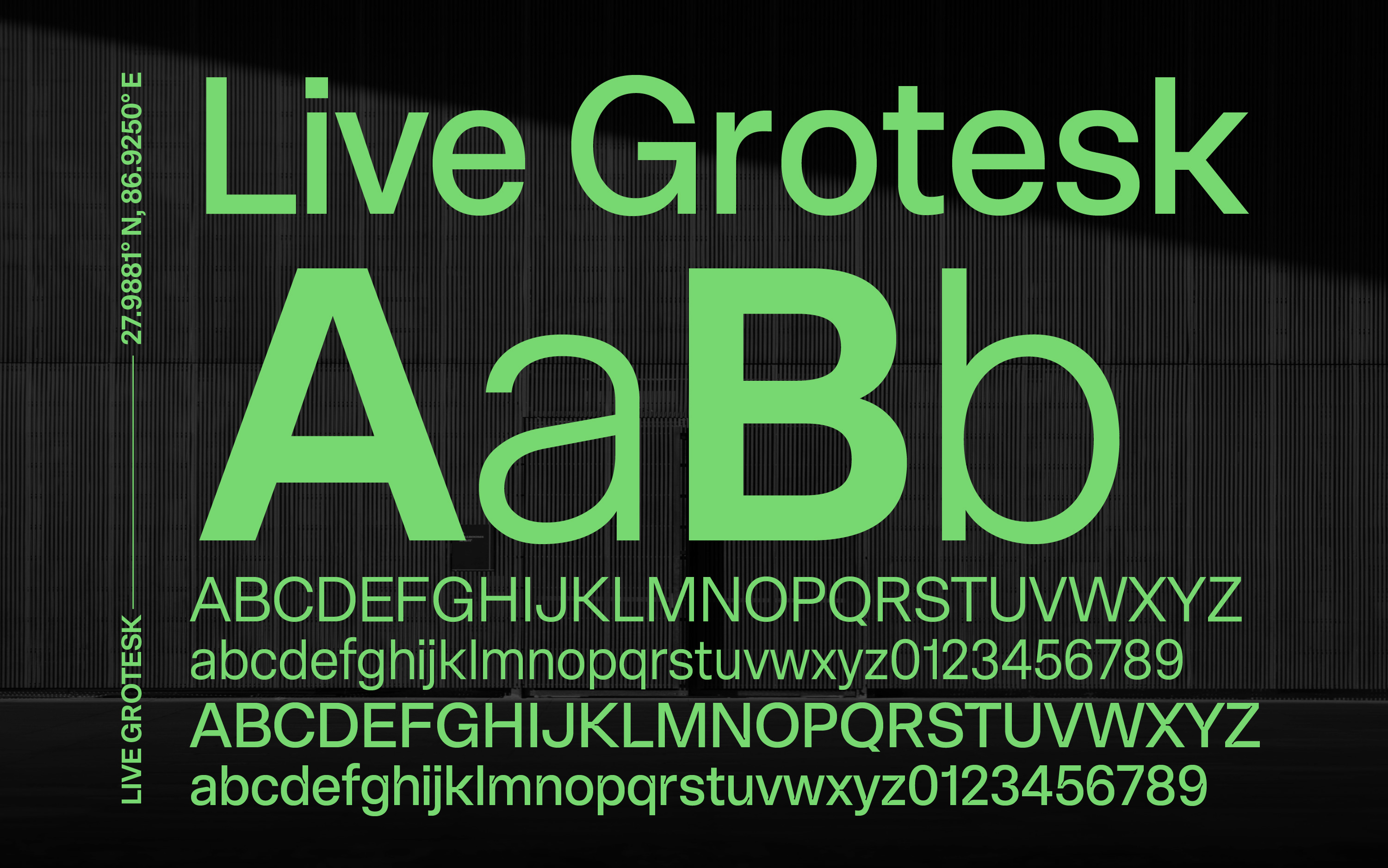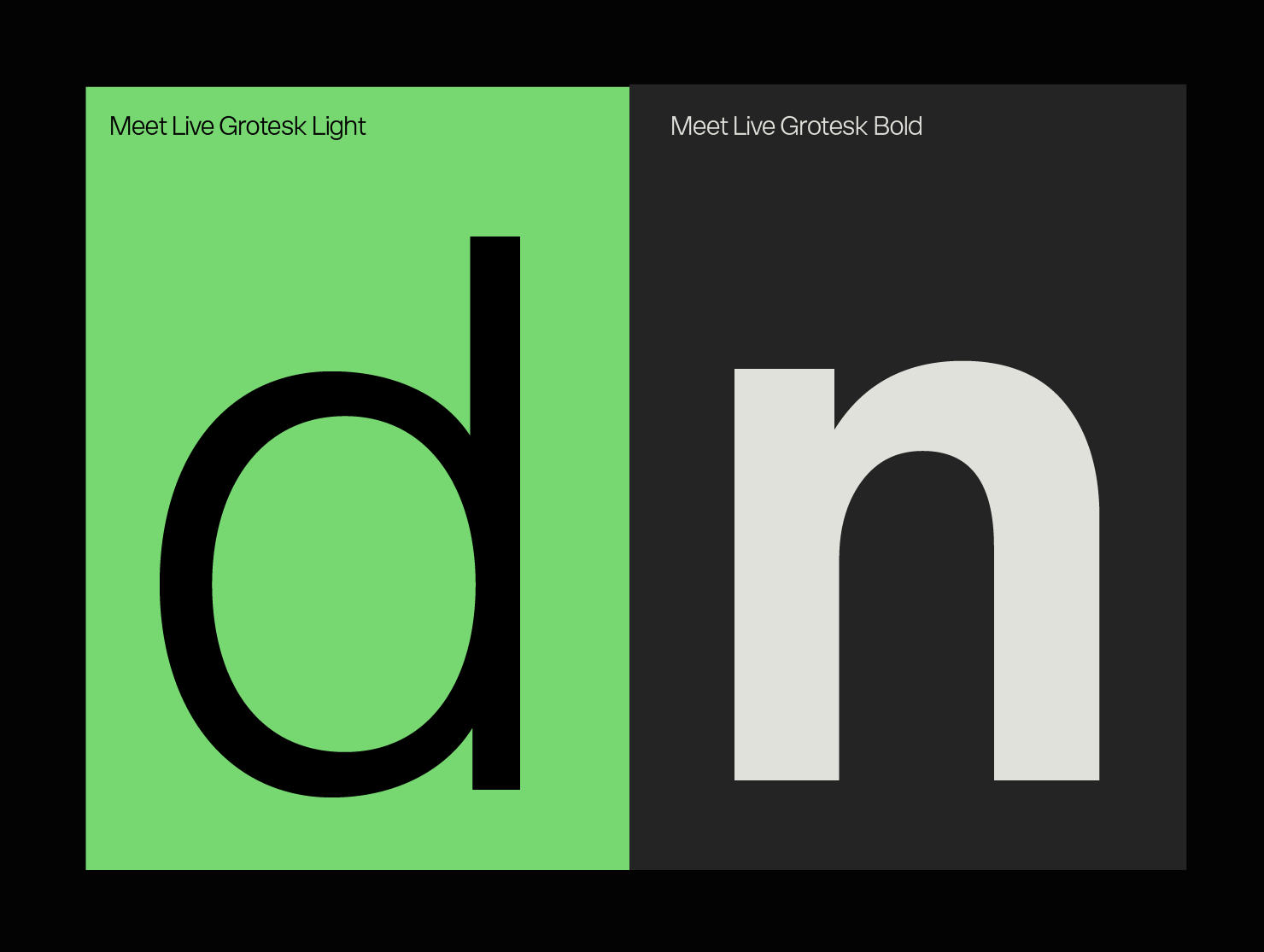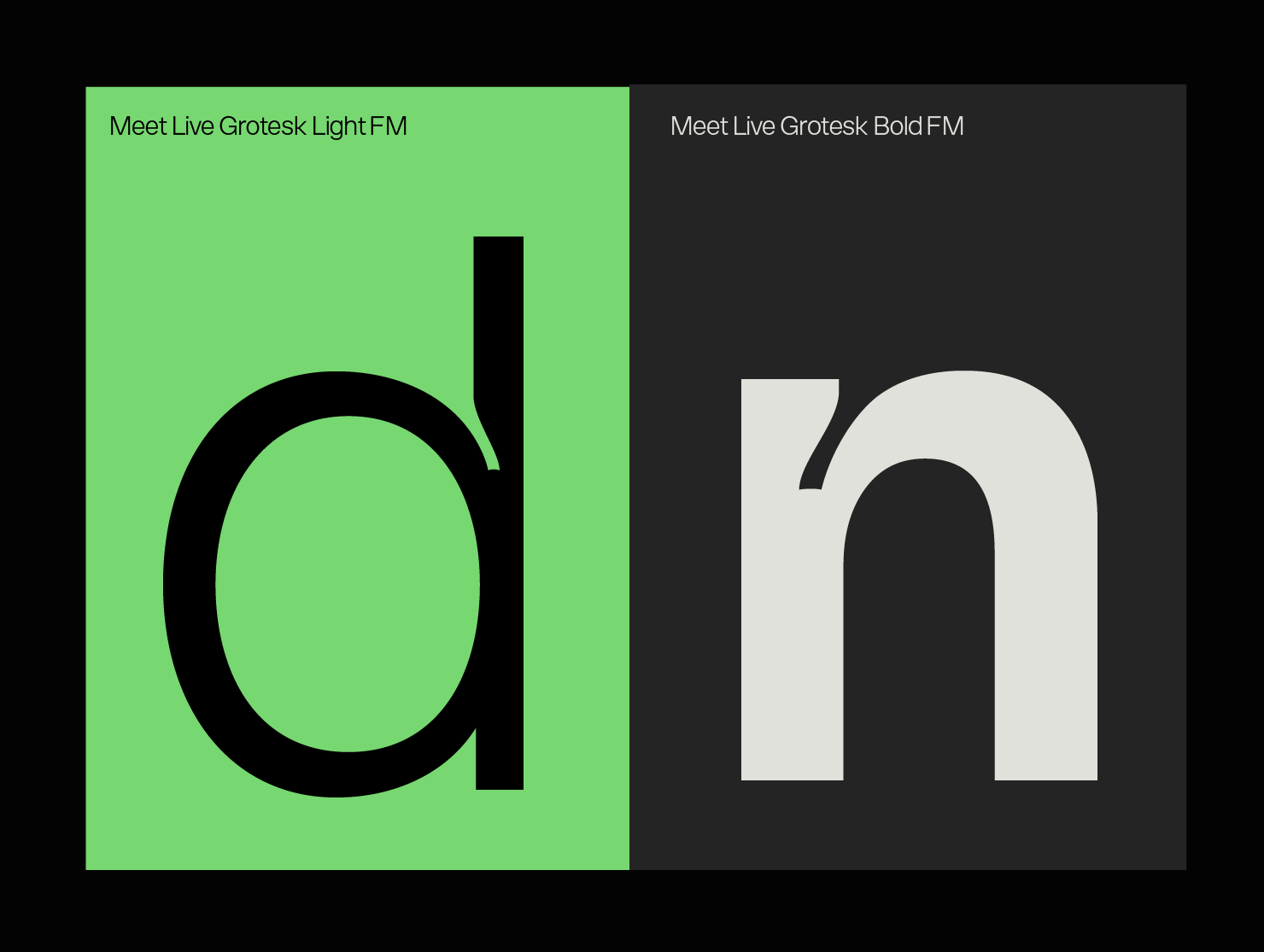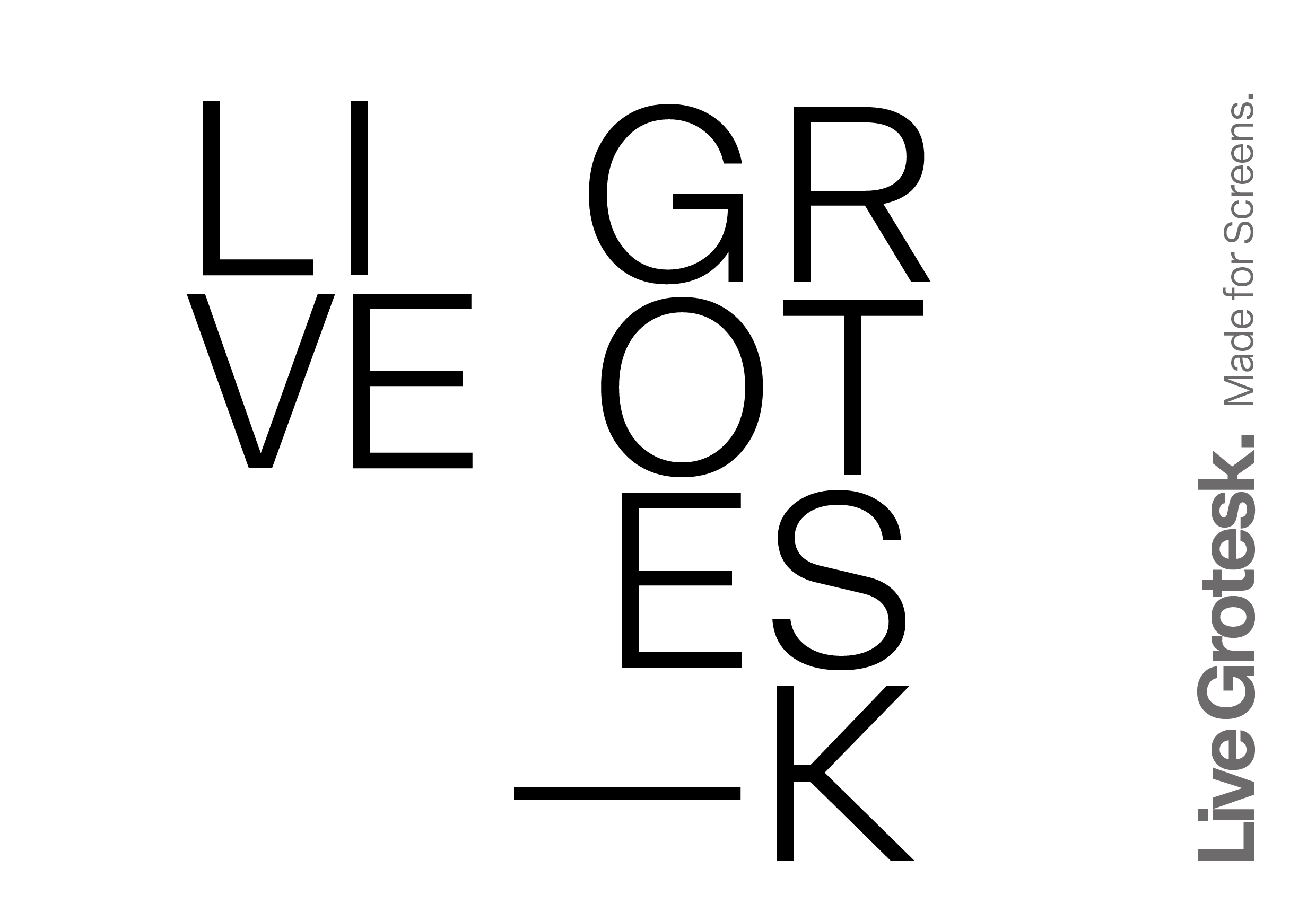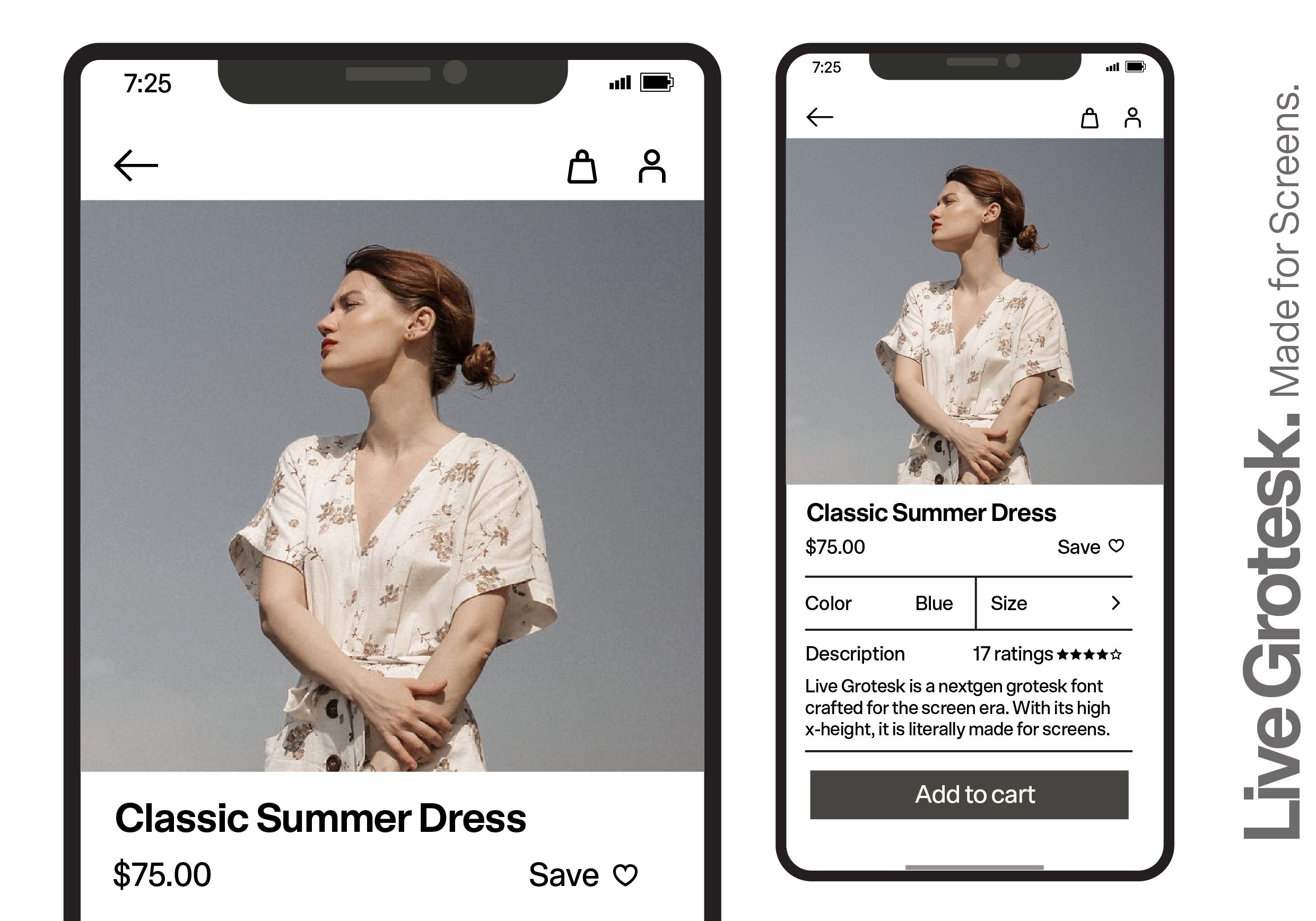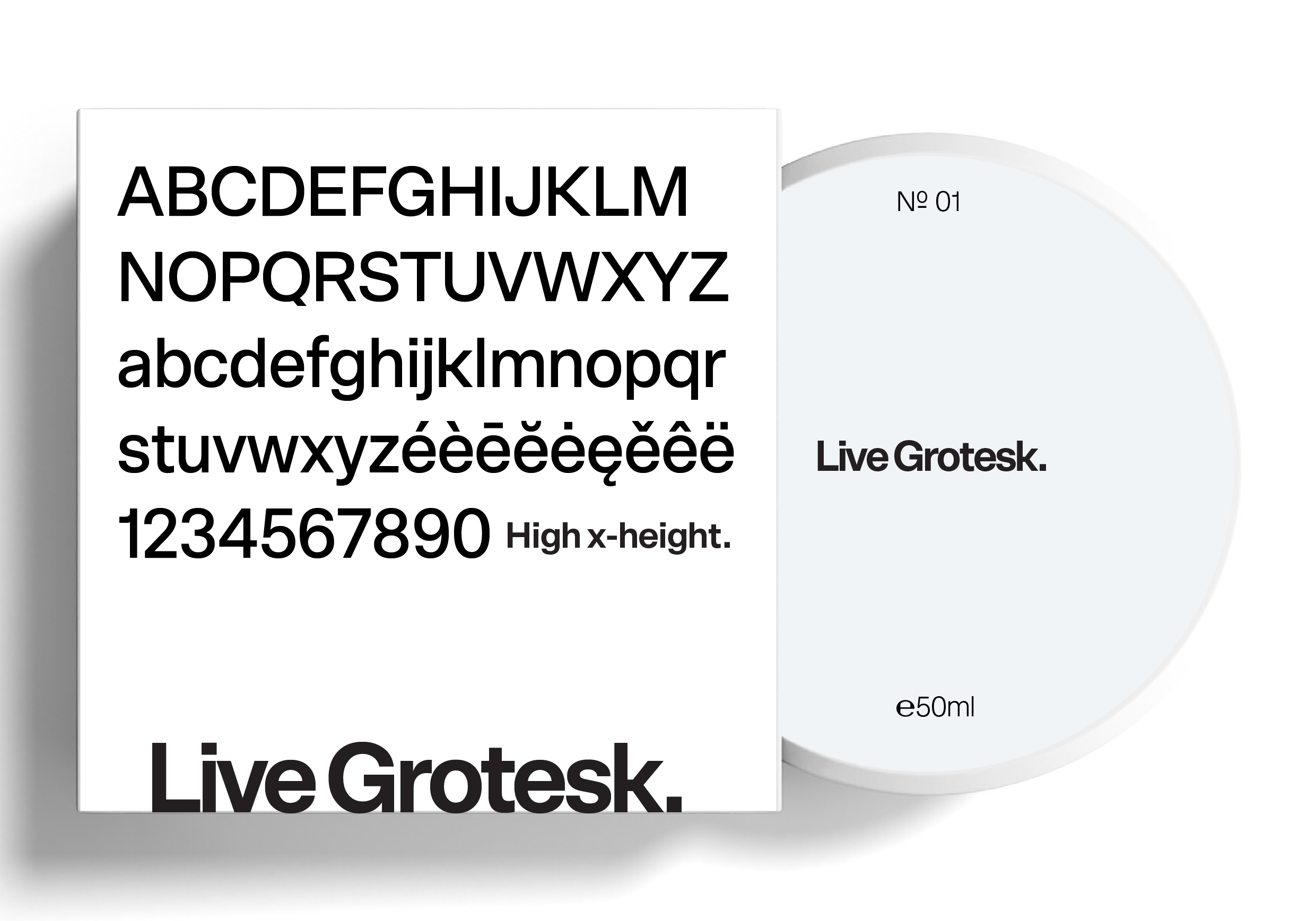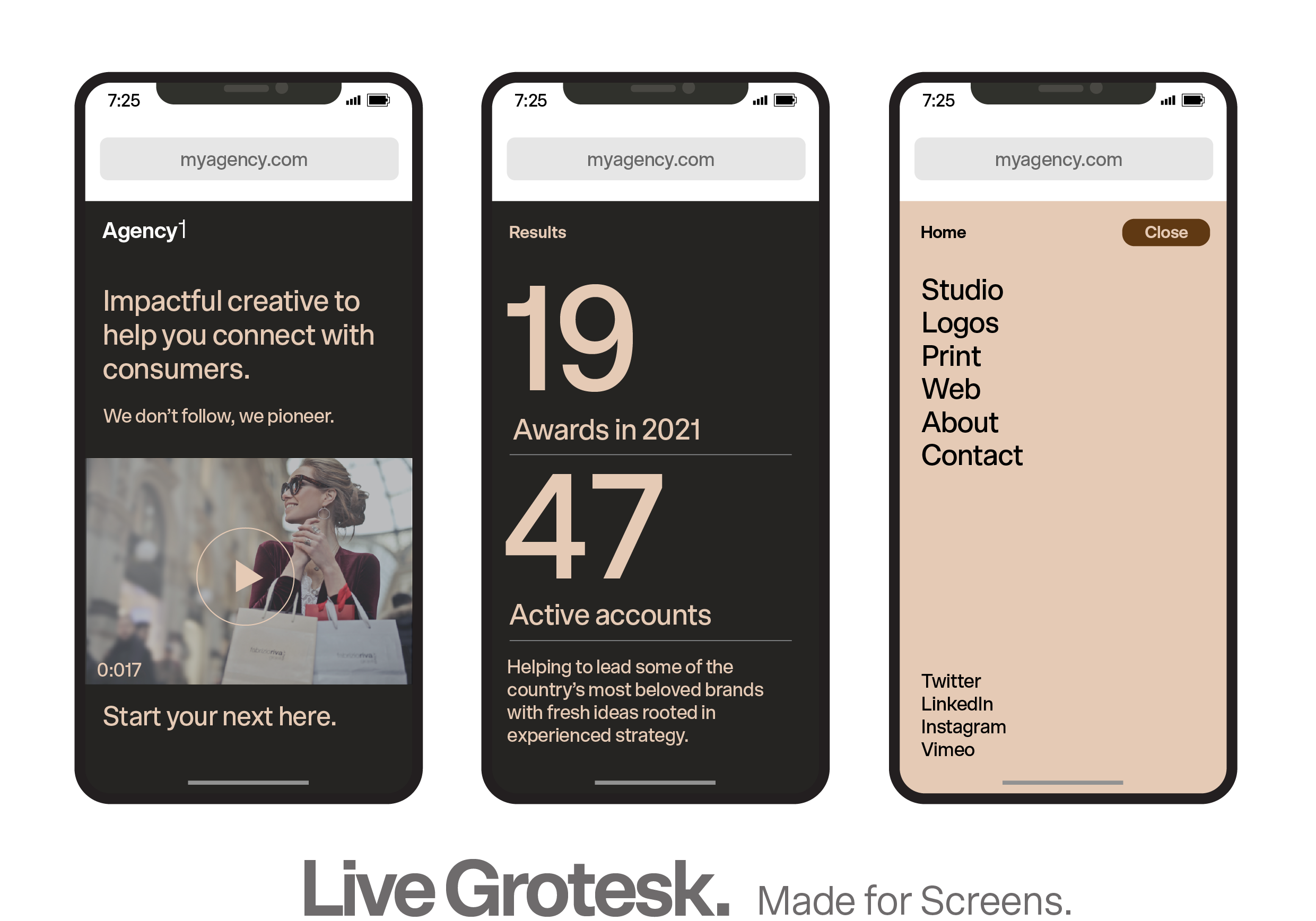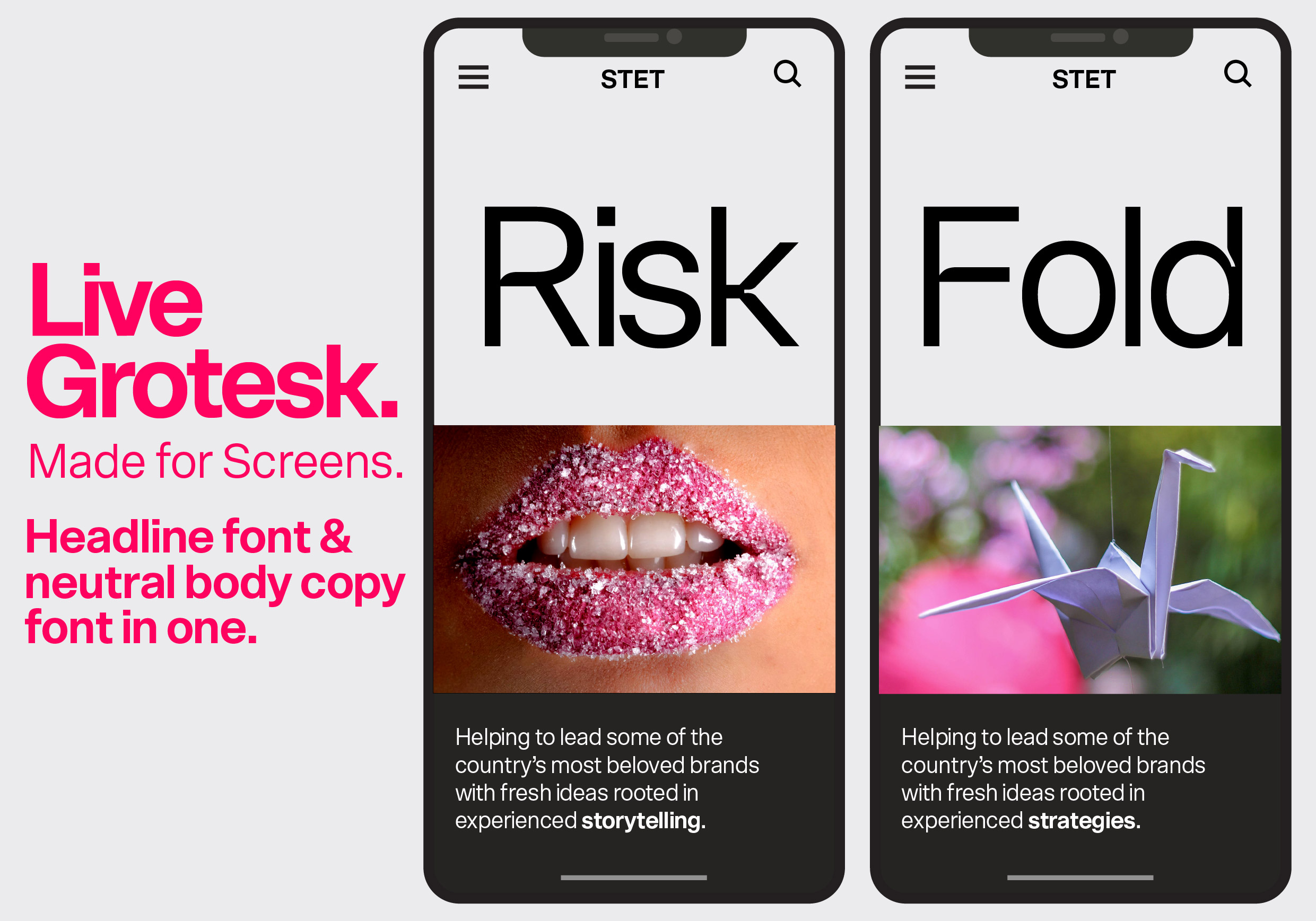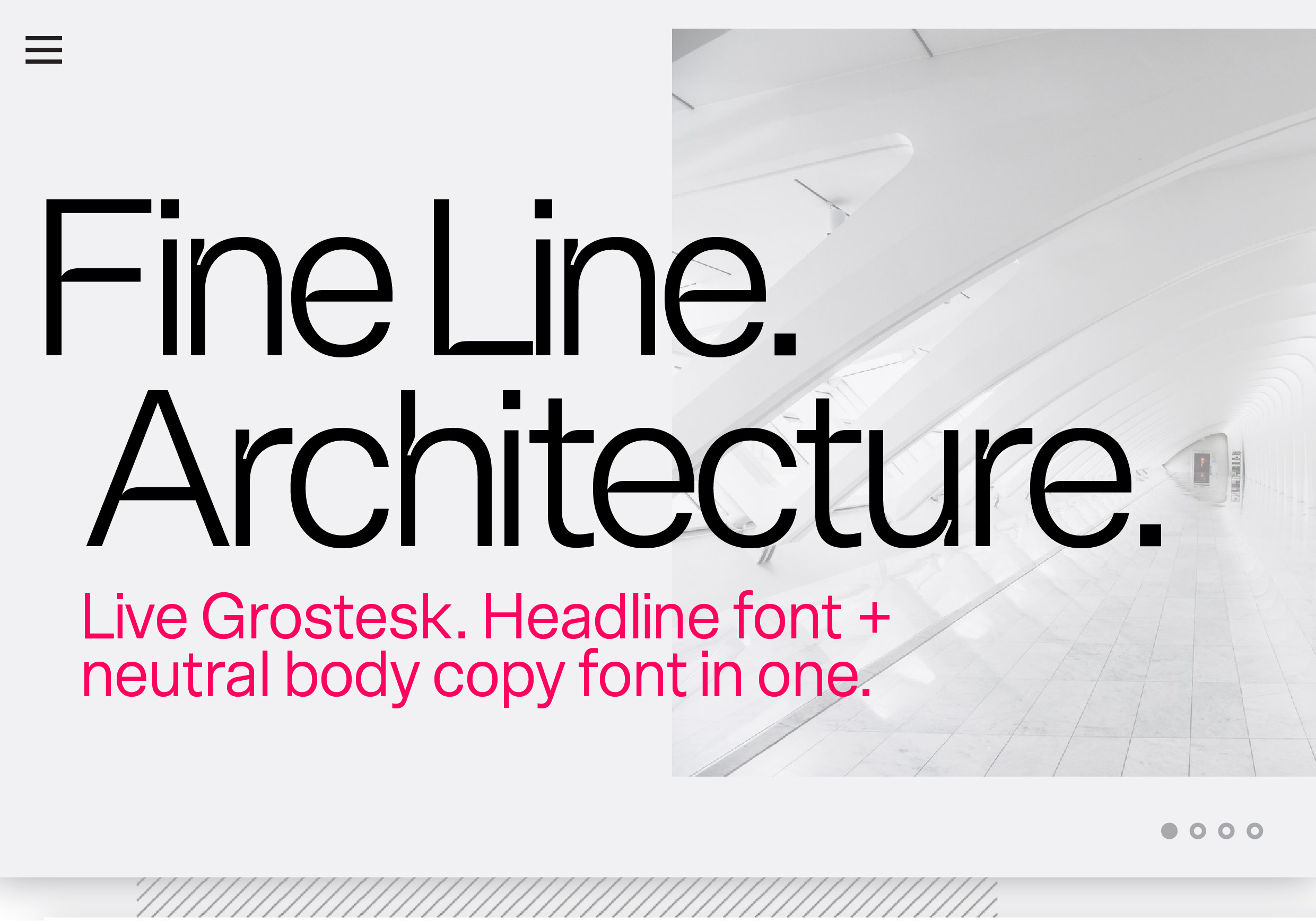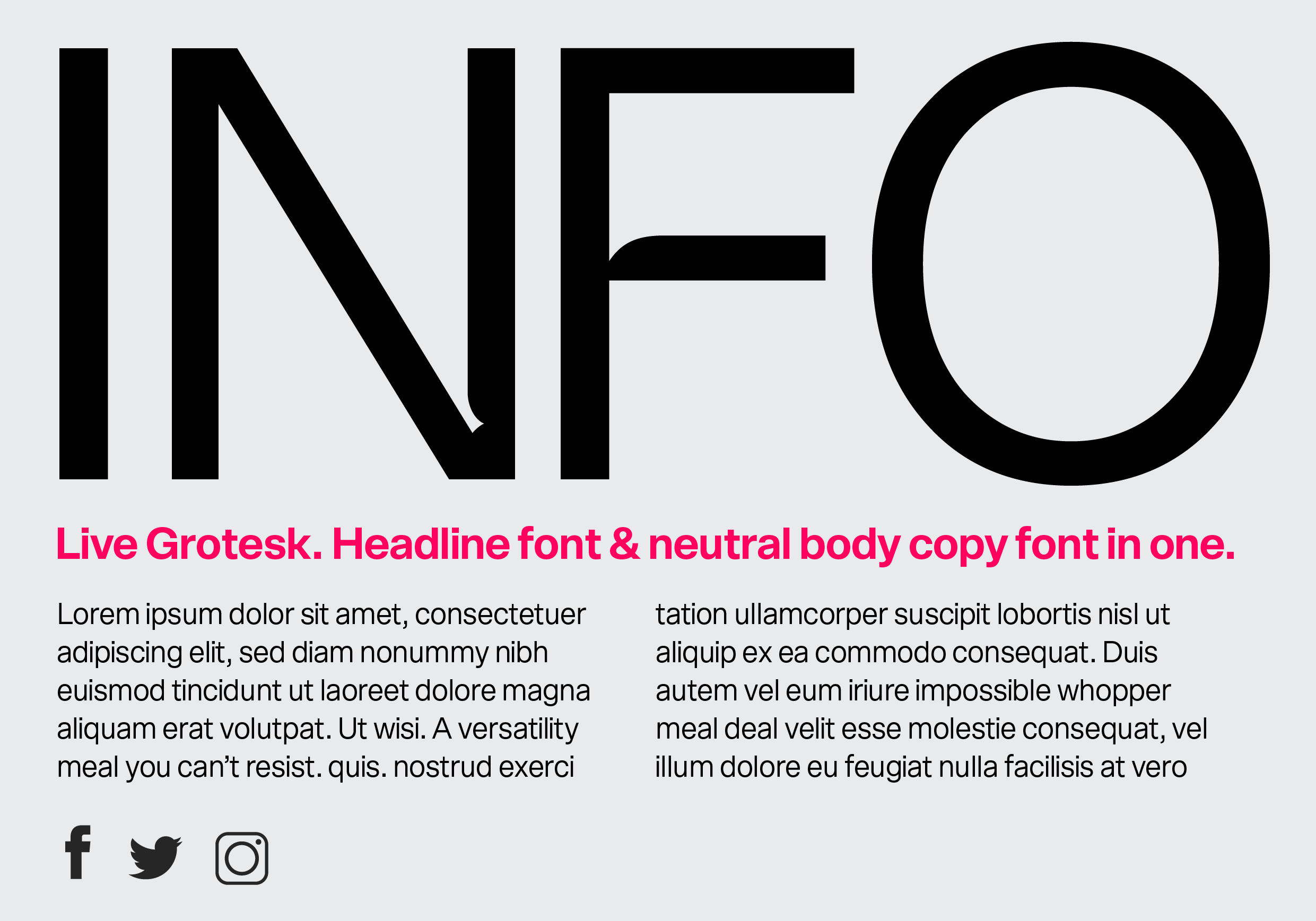
Live GroteskPRINT AND WEB FONT
Live Grotesk for print and web font needs
Live Grotesk is a modern grotesk font crafted for the screen era. With its high x-height, it is literally made for screens. Simplicity and neutrality are key components of the signature look. Live Grotesk comes in a variety of weights and is multilingual. It also has a nice selection of extra glyphs for web designers and UX designers. Designed by award-winning designer, Matt Chansky.